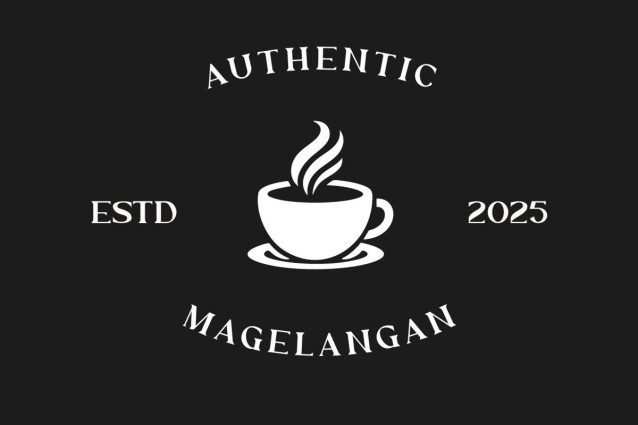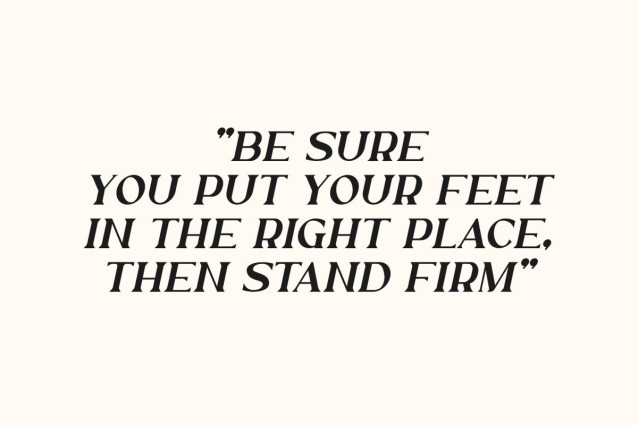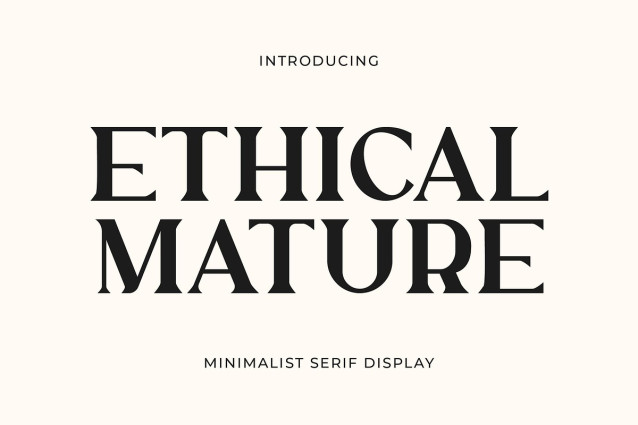
Ethical Mature Font
Ethical Mature Font is a premium luxury serif typeface crafted for those who value elegance, sophistication, and timeless design. With its refined curves and high-contrast strokes, this font evokes a sense of confidence and authority while remaining effortlessly graceful. Whether you’re designing for luxury fashion, editorial layouts, boutique branding, or upscale packaging, Ethical Mature offers a distinguished presence that elevates every project.
This fonts are great for product logo,wedding card logo, clothing brand logo, Vintage design and much more.